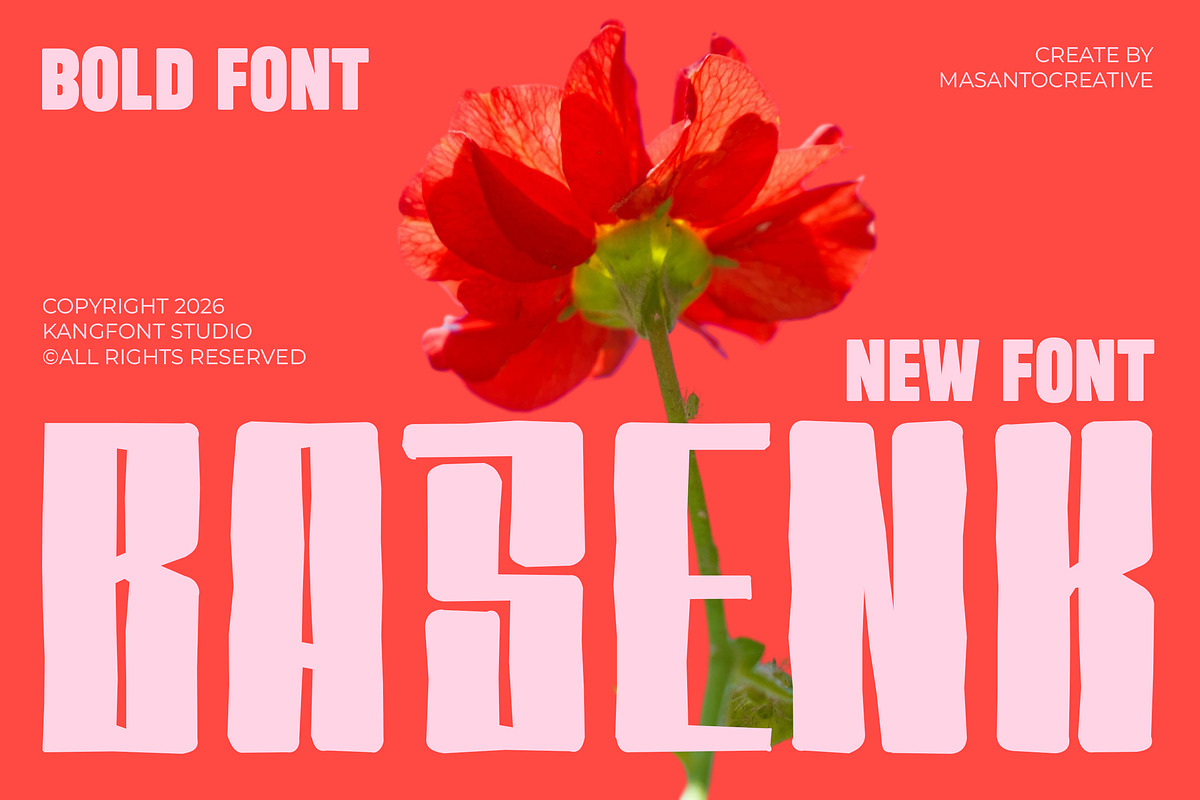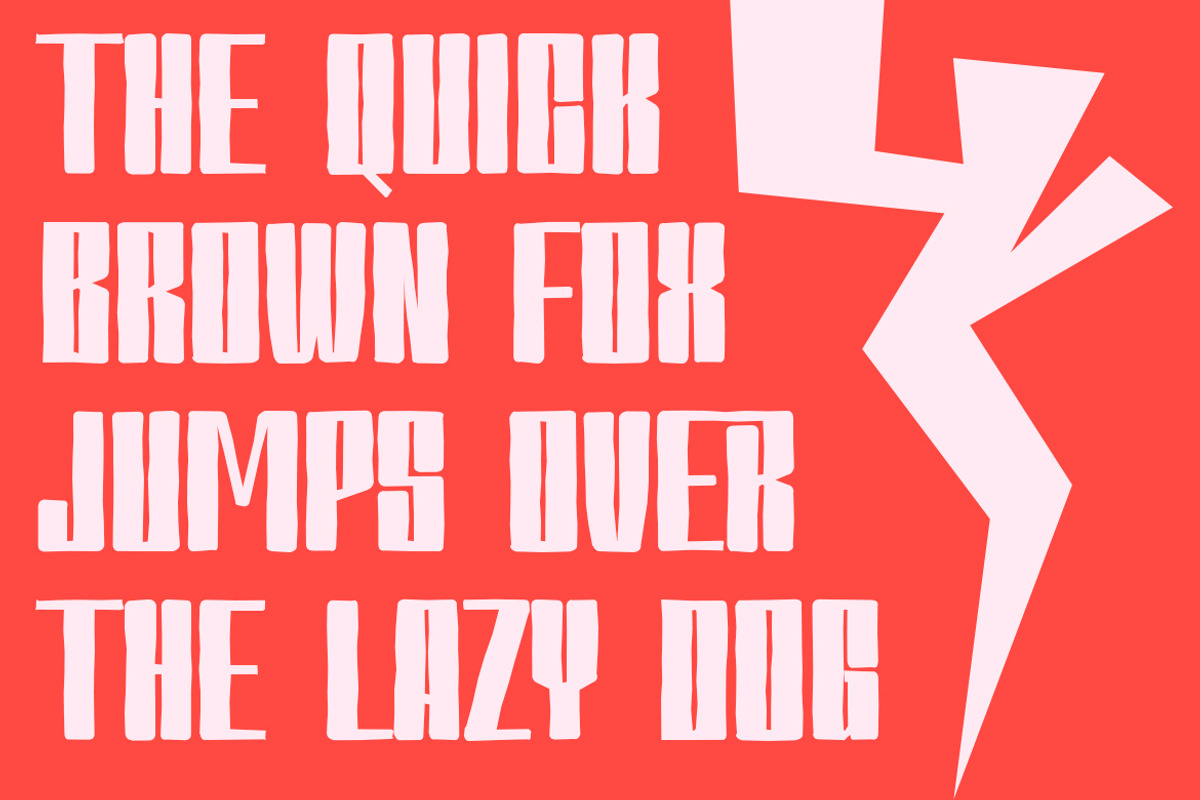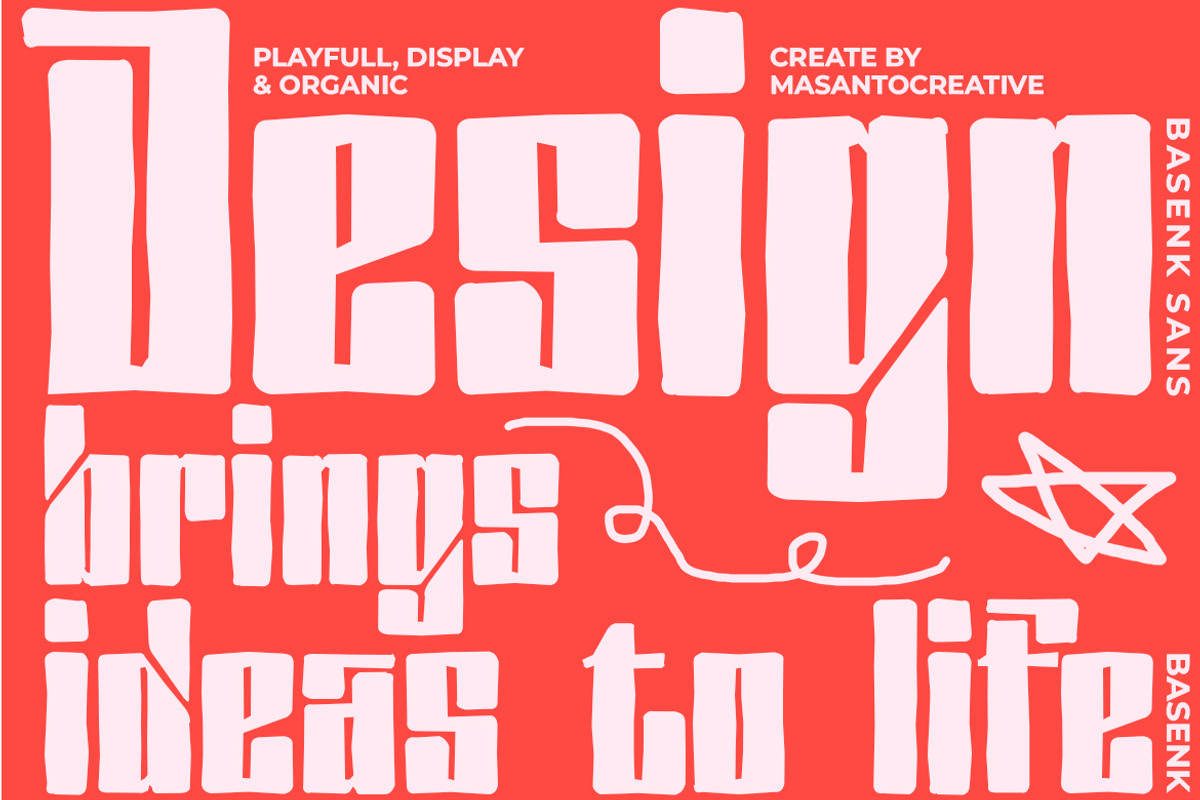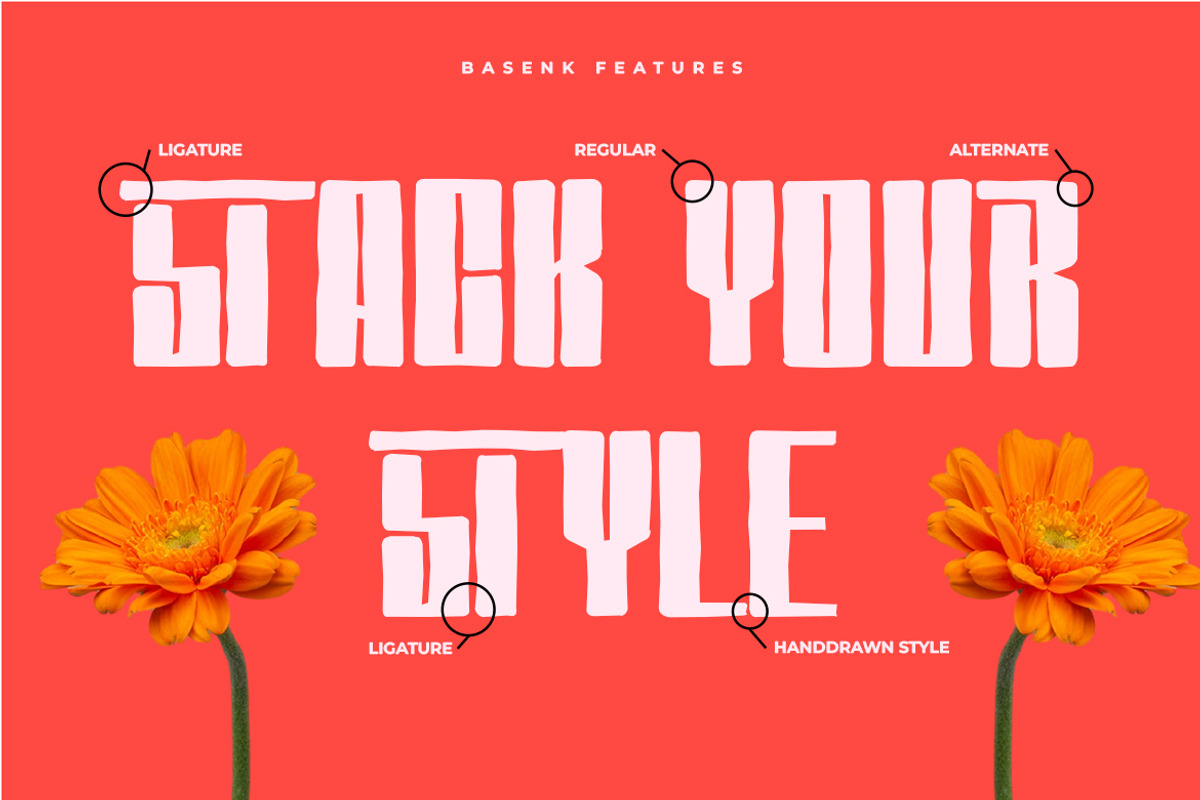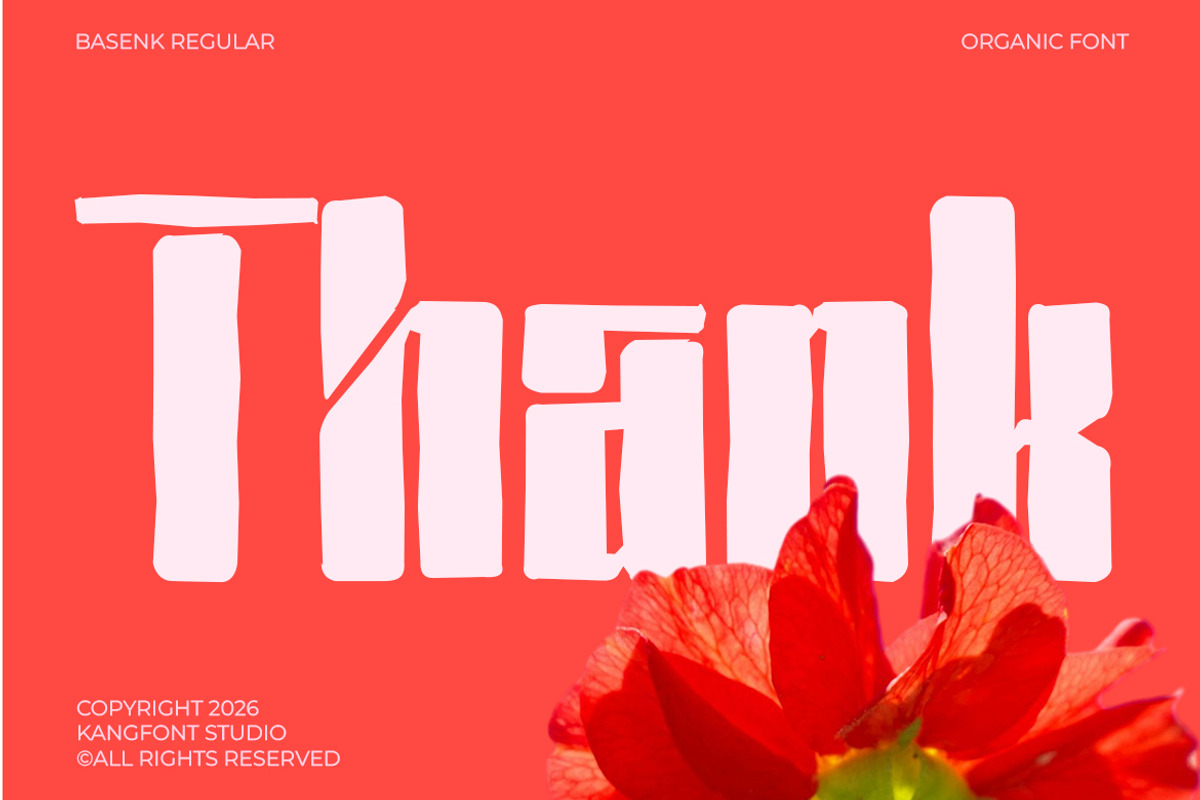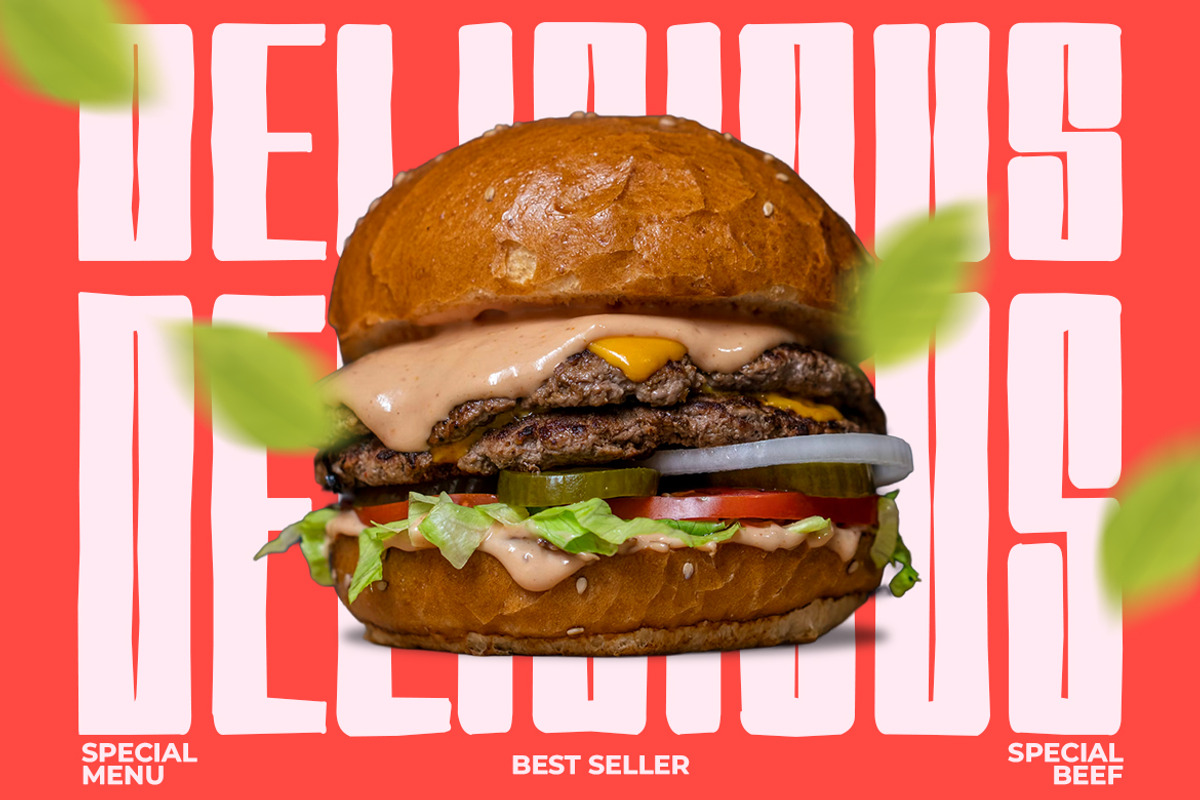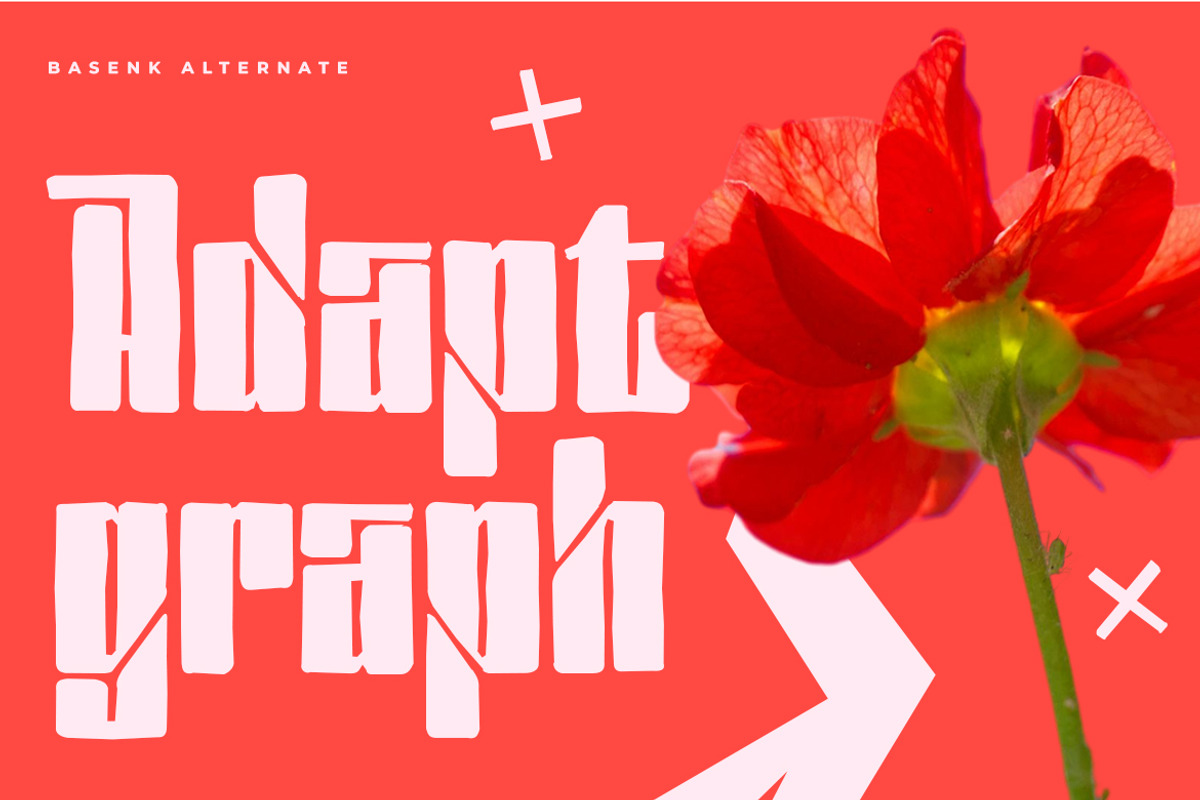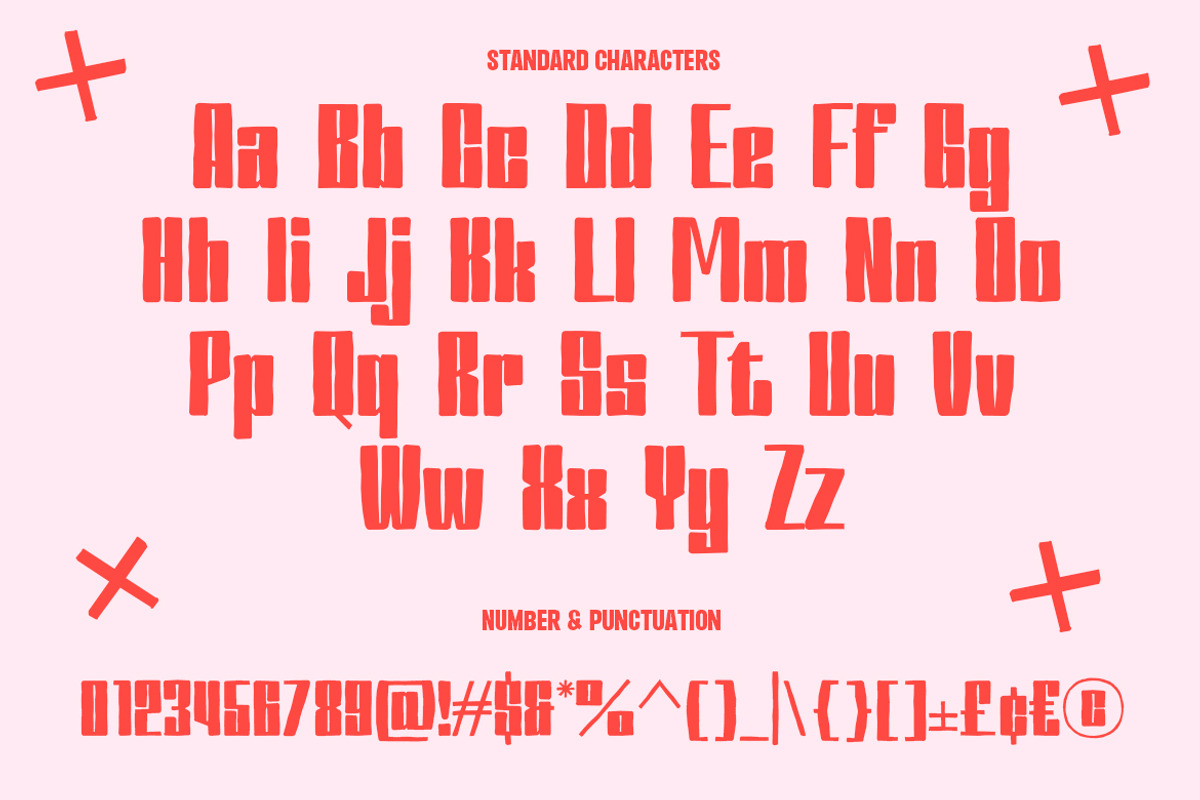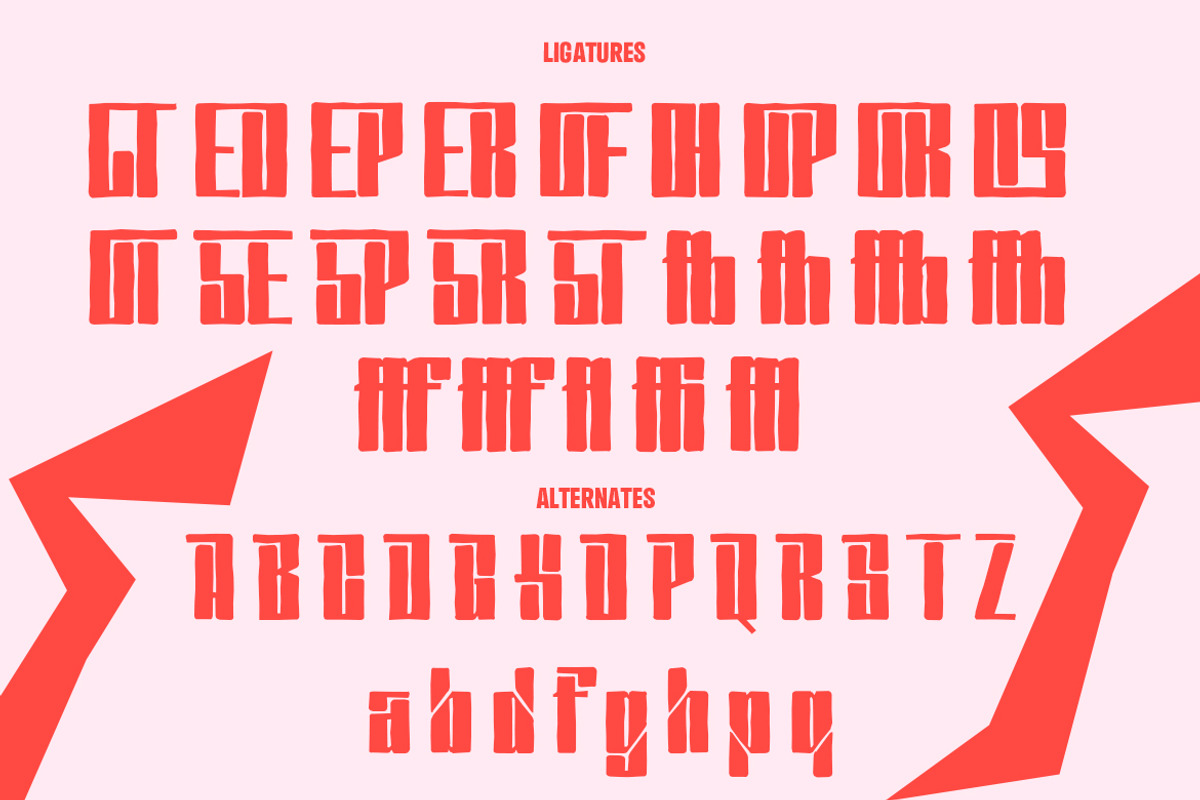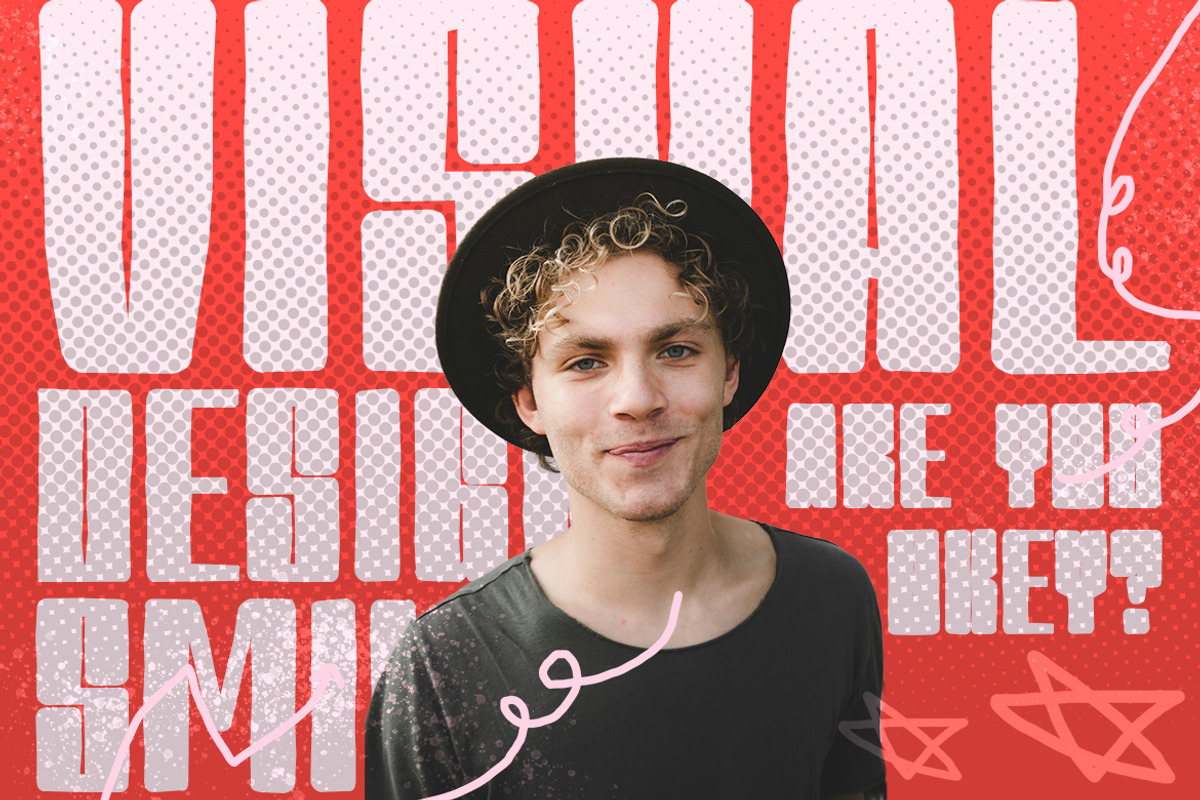
Basenk – Bold Organic Playful Displa
Basenk Sans is a bold and playful display font with a unique organic touch. Designed with an irregular hand-drawn feel, this font brings strong personality and expressive character to any design project. With its chunky shapes and slightly imperfect edges, Basenk Sans creates a lively and modern look that stands out instantly. It comes with stylistic alternates and ligatures, allowing you to explore more creative typography combinations and build distinctive visual identities. This font is perfect for projects that need a bold and fun appearance, such as posters, branding, packaging, social media graphics, headlines, and merchandise design.
- Handcrafted organic style